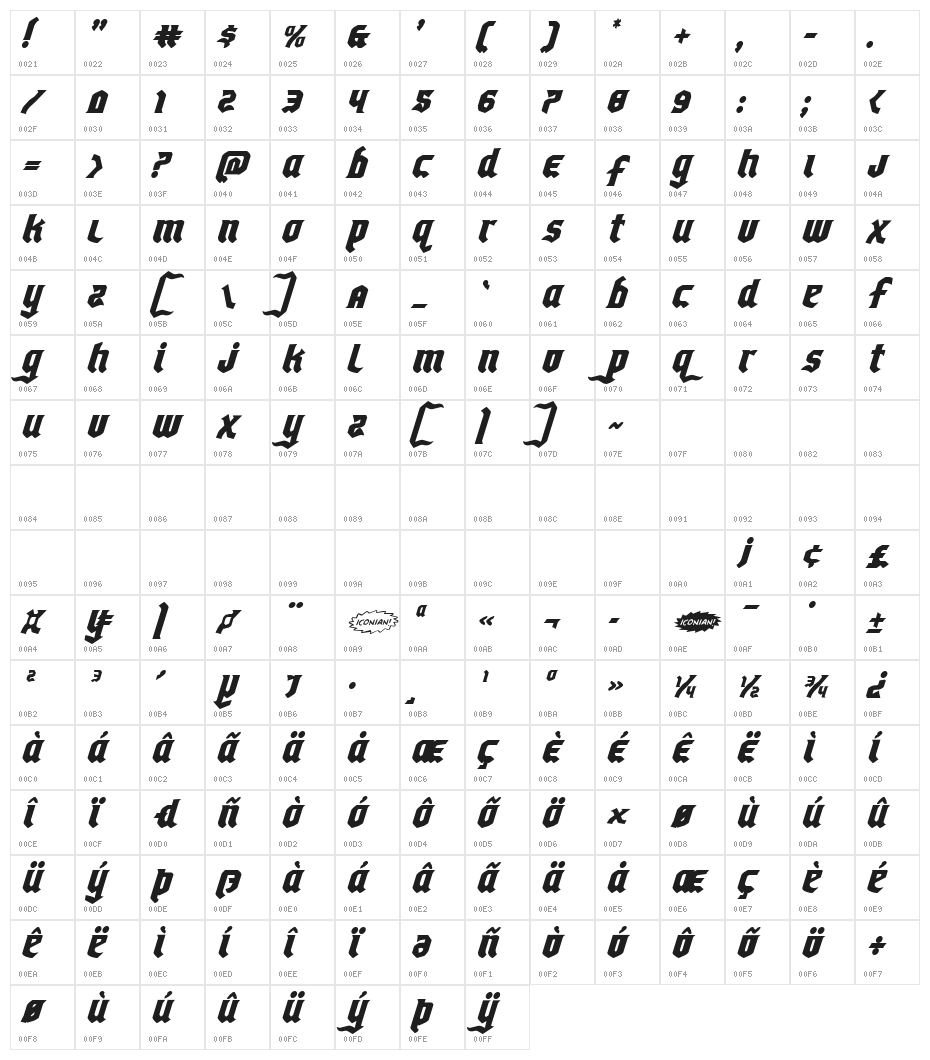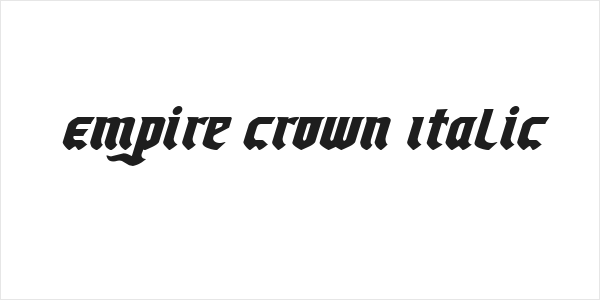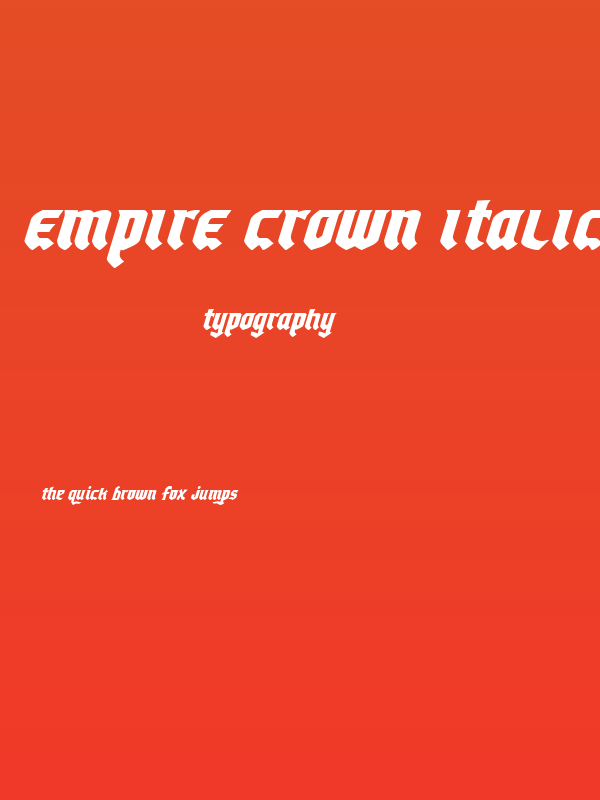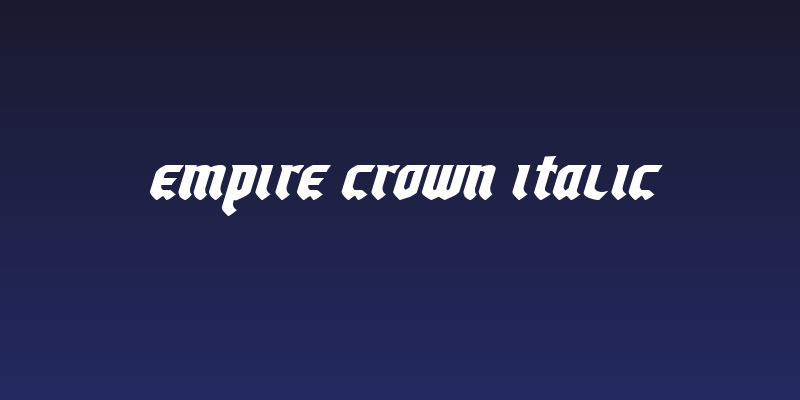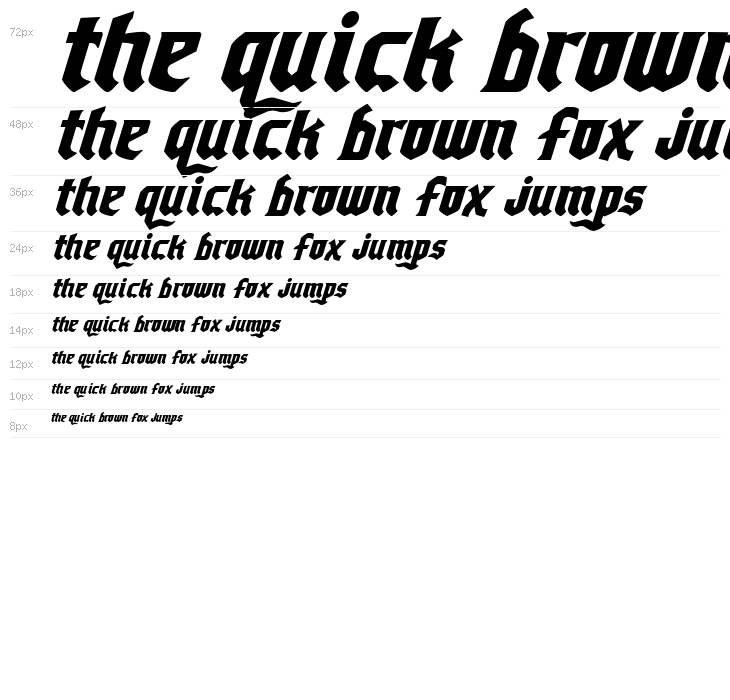
Empire Crown Italic Font
Empire Crown Italic Description
This font features a bold and dynamic style with a strong italic slant, giving it a sense of movement and energy. The characters are thick and robust, with sharp angles and a slightly condensed form that adds to its striking appearance. The uppercase and lowercase letters maintain a consistent design, ensuring readability while still offering a unique flair. The numerals and special characters follow the same bold and angular style, making them easily distinguishable. This font's overall design is reminiscent of a modern take on traditional blackletter or gothic styles, offering a contemporary twist with its italicized form.